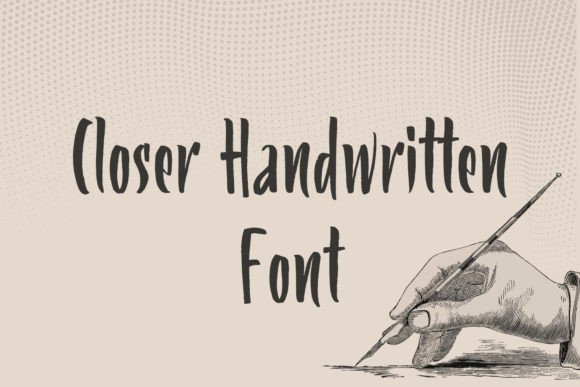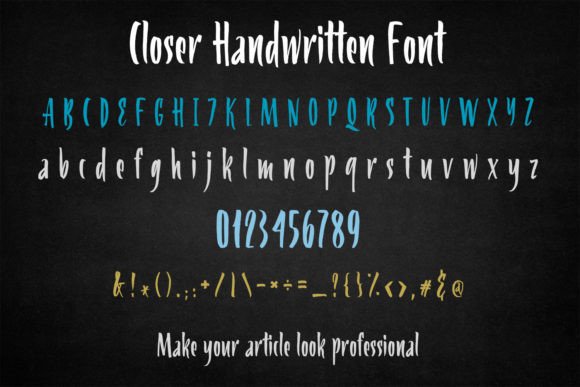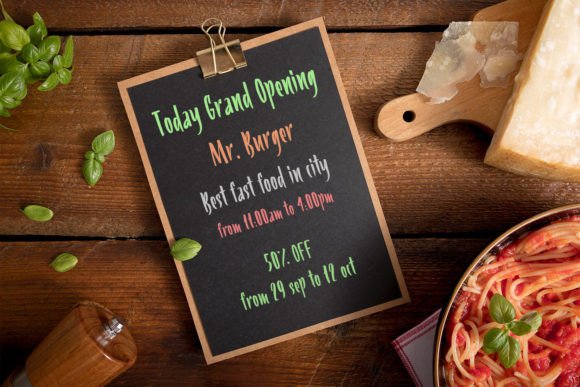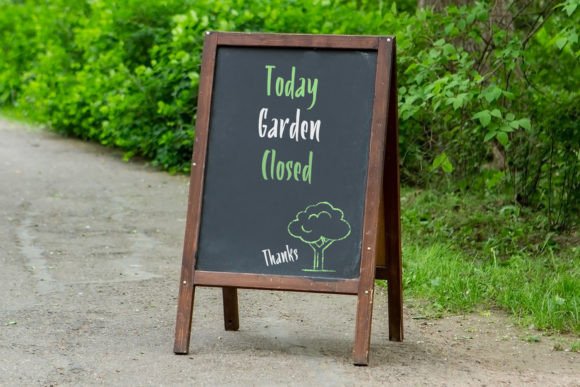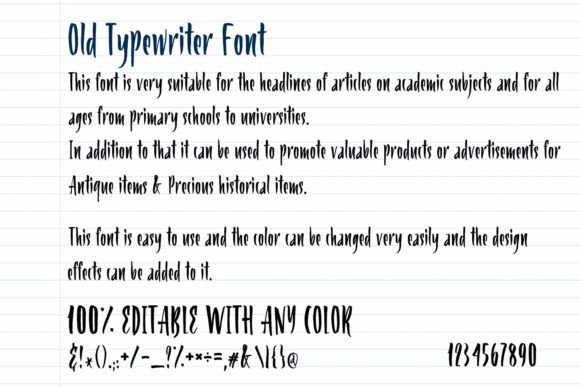
Closer Font
About Closer Font
**Closer Handwritten Font: Stylish Elegance for Spectacular Designs**
Introducing “Closer Handwritten,” a stylish and incredibly elegant script font designed to add a touch of sophistication to your creative projects. This versatile font is perfect for a wide range of applications, including wedding invitations, thank-you cards, quotes, greeting cards, logos, business cards, and any design that benefits from a handwritten touch.
**Stylish and Incredibly Elegant:**
Closer Handwritten Font embodies style and elegance with its carefully crafted script. Each stroke exudes sophistication, making it a perfect choice for projects where a touch of stylish grace is desired.
**Perfect for Various Designs:**
This font looks stunning across a variety of design applications. Whether it’s for wedding invitations, thank-you cards, or business logos, Closer Handwritten adapts seamlessly, adding an elegant and handwritten charm to your designs.
**Versatile Style:**
Fall in love with the incredibly versatile style of Closer Handwritten. It’s designed to be adaptable to different design needs, ensuring that your projects have a distinctive and elegant appearance.
**Create Spectacular Designs:**
Let Closer Handwritten be the muse for creating spectacular designs. Its elegance and versatility make it a valuable asset for turning your creative ideas into visually stunning and memorable pieces.
**Ideal for Personal and Business Use:**
Whether you’re designing personal invitations or crafting a business logo, Closer Handwritten is the font that brings a touch of handwritten charm to your projects. It adds a personal and human element to your designs.
Closer Handwritten Font is more than just a script; it’s an invitation to infuse your designs with the timeless elegance of handwritten style. Let it be the element that elevates your projects, creating a visual language that speaks of sophistication and grace.